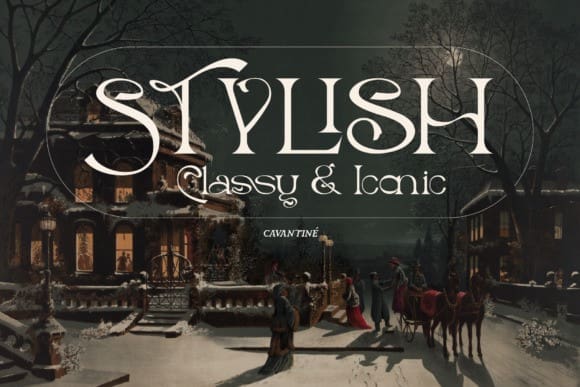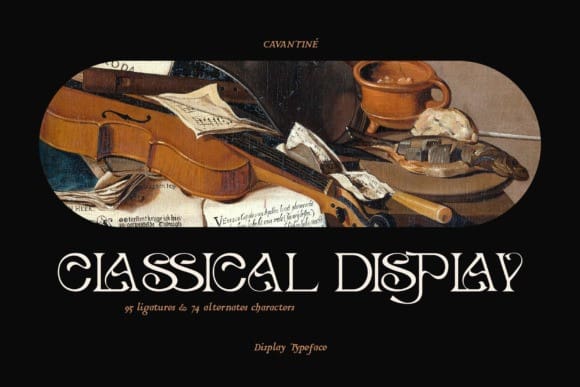
Cavantine Font
Cavantine Font is a chic, trendy and elegant serif font. This font is PUA encoded which means you can access all of the glyphs and swashes with ease! Fall in love with its incredibly versatile style and use it to create spectacular designs!